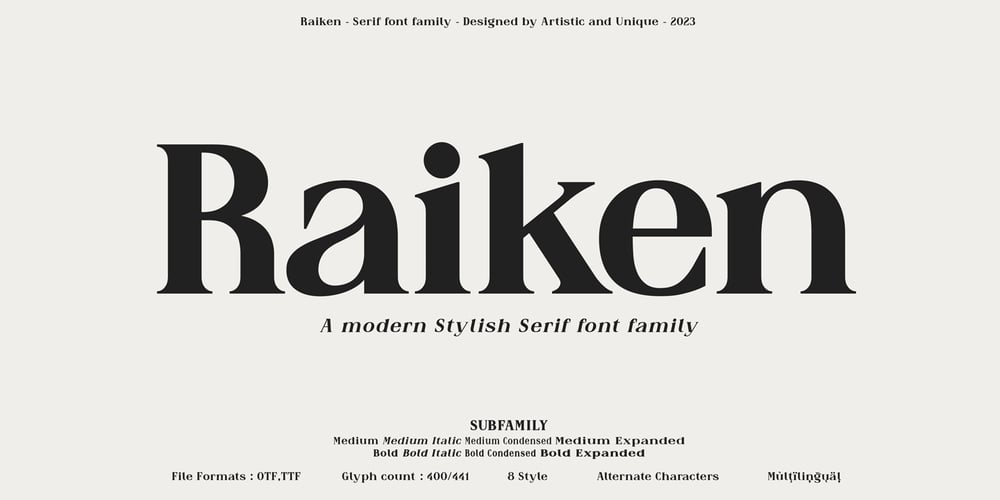
Raiken Font Family was designed by Osman Taner Kucukgenc and published by Artisticandunique. Raiken contains 8 styles and family package options. Raiken – Serif font family – 8 Styles – Multilingual supportsRaiken is a stylistic and powerful serif font family with different alternative type designs.You will have the opportunity to enrich the content of your projects with alternative characters.This font comes with multi-language support and 8 styles. It has an elegant structure that can be effective in the development of your projects.According to the purpose of use in typographic compositions that you will create with the aesthetic structure of alternative characters; You can enrich your titles in books or magazines, and your logos in branding.You can take advantage of the elegant structure of standard characters in your plain texts. It provides flexibility in all your projects with the alternatives it offers you with its multi-language option, 8 styles and 441 glyphs.Especially for editorials, magazines, books, branding, logo design, web design, headlines, movie titles etc.If you are looking for a font with stylistic alternatives, Raiken serif font can meet your needs.With this font you can create your unique designs.If you have a question, please contact me.Have a good time.